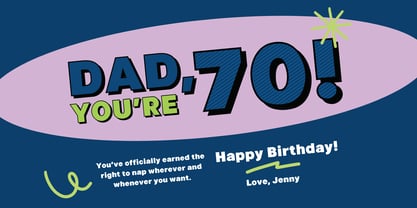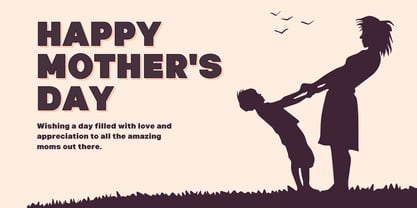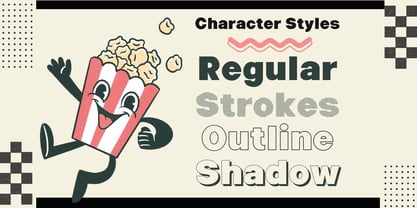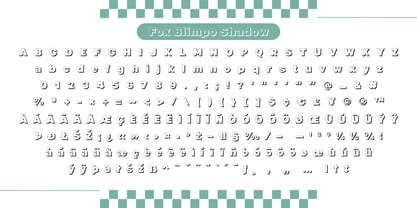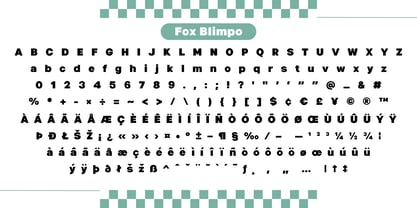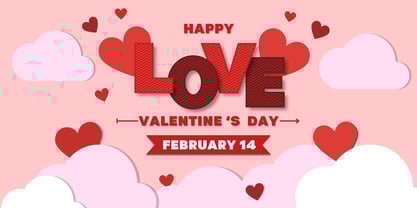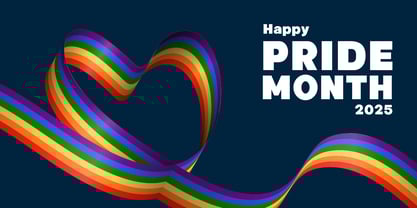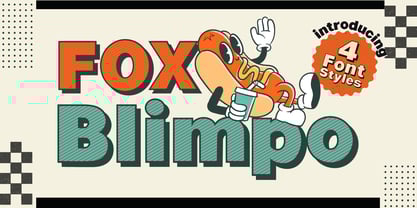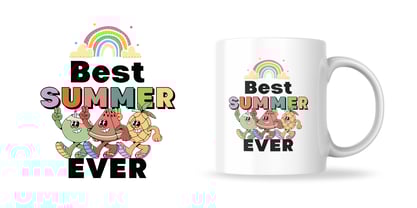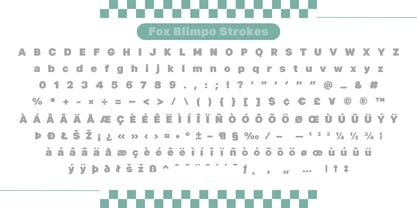
Fox Blimpo
von Fox7
Die Schriftfamilie Fox Blimpo wurde von Rattana Rattanawan entworfen und von Fox7 veröffentlicht. Fox Blimpo enthält 4 Stile und Familienpaketoptionen.
Fox Blimpo – A Fun & Chunky Display Font Family (4 Styles)
Say hello to Fox Blimpo, a bold and cool display font family inspired by retro cartoons and vintage snack ads! With its thick curves and playful personality, Fox Blimpo is perfect for designs that need a dose of fun and nostalgia.
Regular – Solid and friendly, perfect for eye-catching titles.
Outline – A clean line version for a playful and lightweight touch.
Shadow – Add instant depth and pop-art vibes with this bold shadow style.
Strokes – A hatched texture that brings a handcrafted, comic book feel.
🍔 Whether you're working on children’s books, retro packaging, t-shirt graphics, posters, or party invitations, Fox Blimpo brings energy and charm to every project. The font pairs perfectly with colorful illustrations and vintage-style graphics.
Designer: Rattana Rattanawan